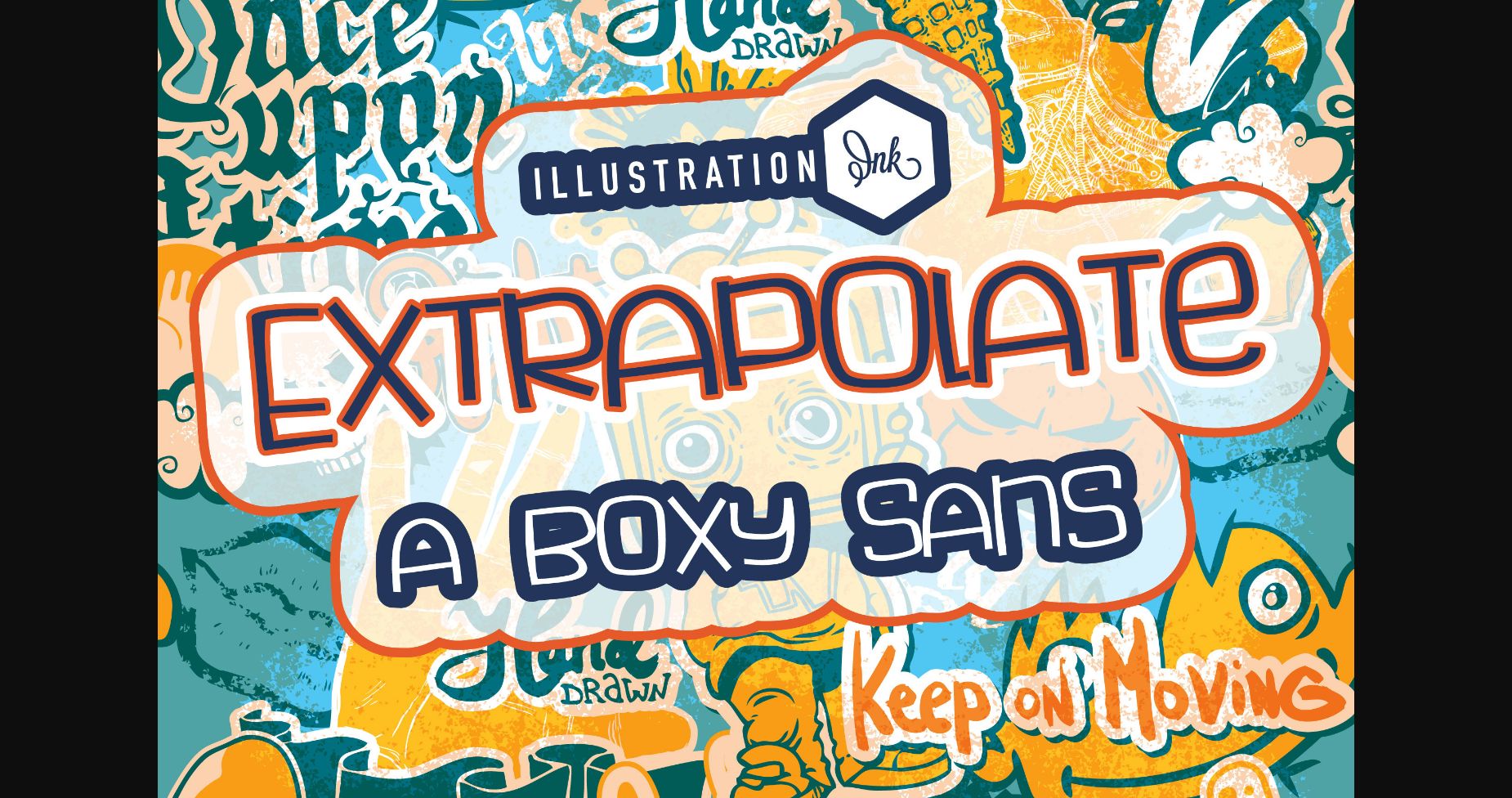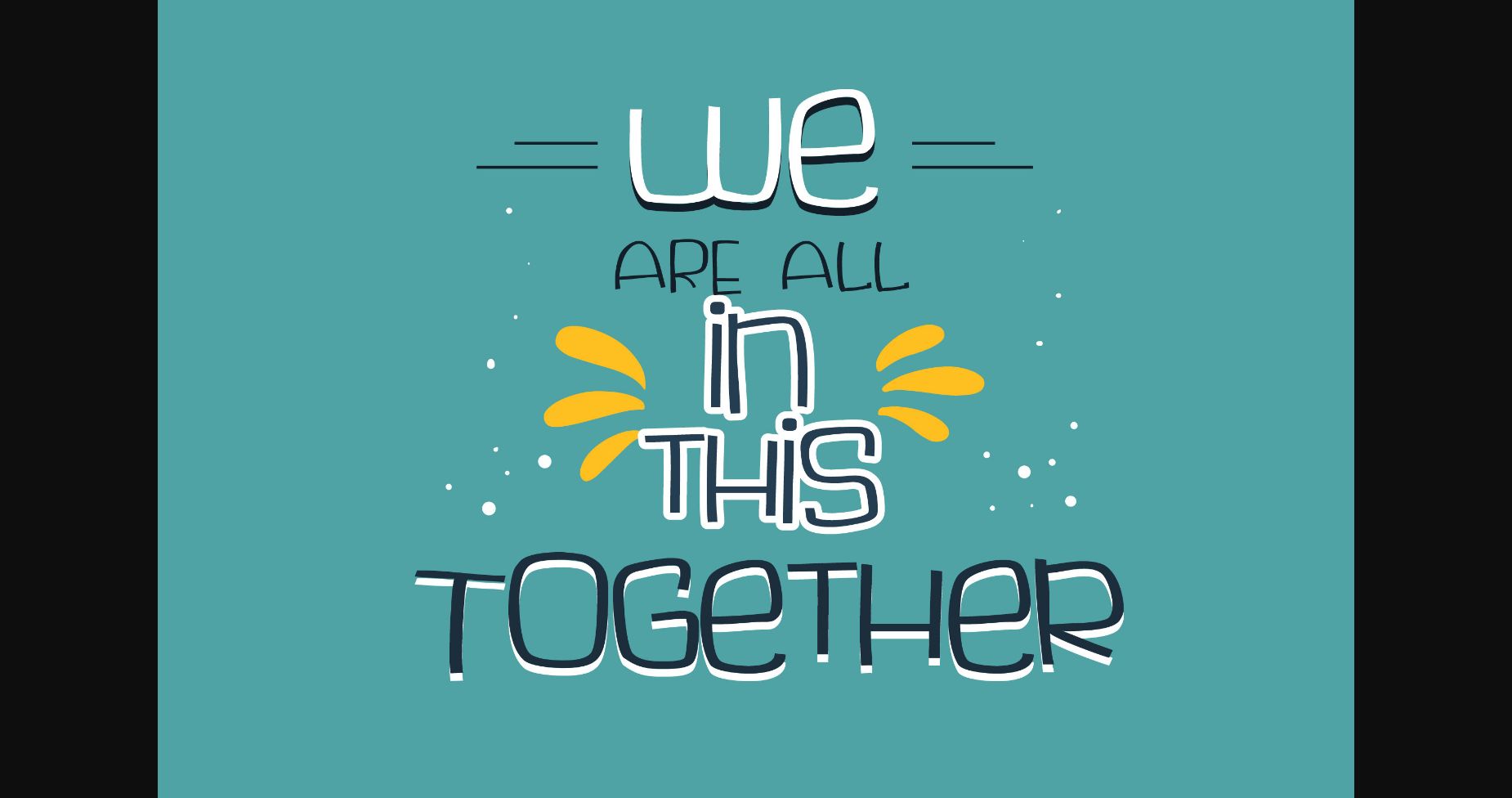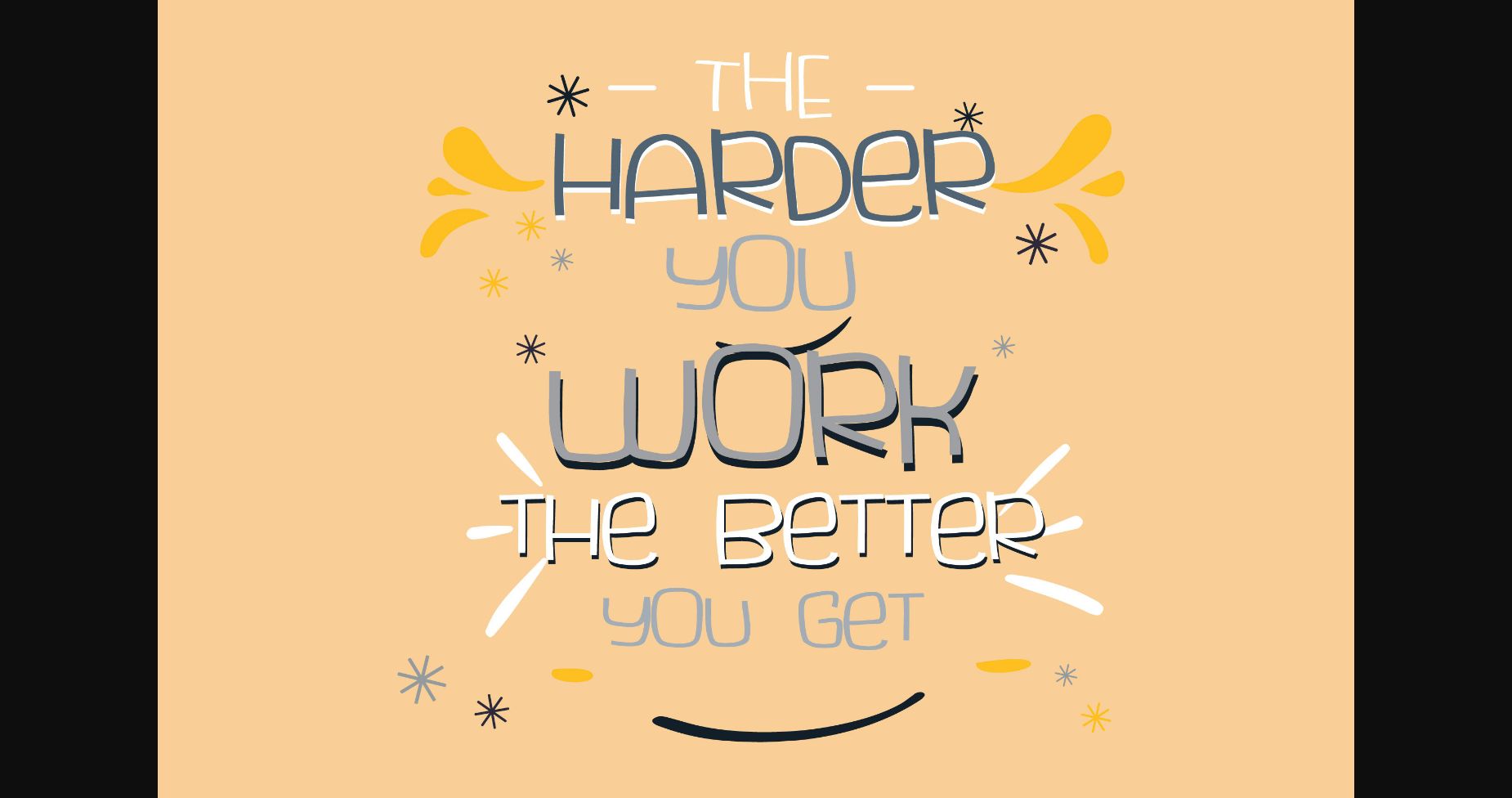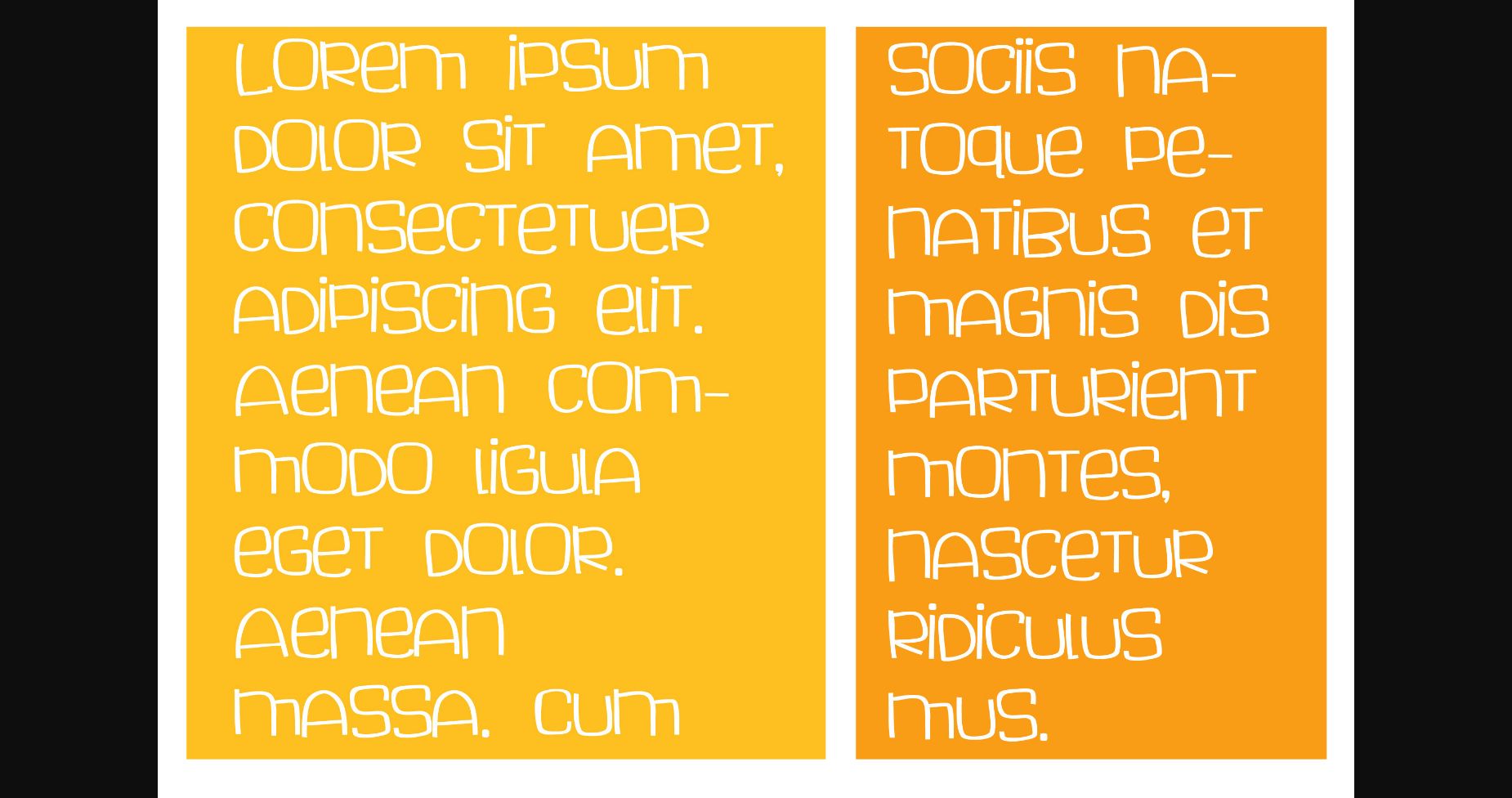
About Extrapolate Font
Extrapolate is a modern and stunning sans-serif font that features clean lines and sharp edges, making it perfect for creating modern and contemporary designs. The strong structure and minimal style create a powerful and impactful look that stands out. Its versatility makes it perfect for any project.